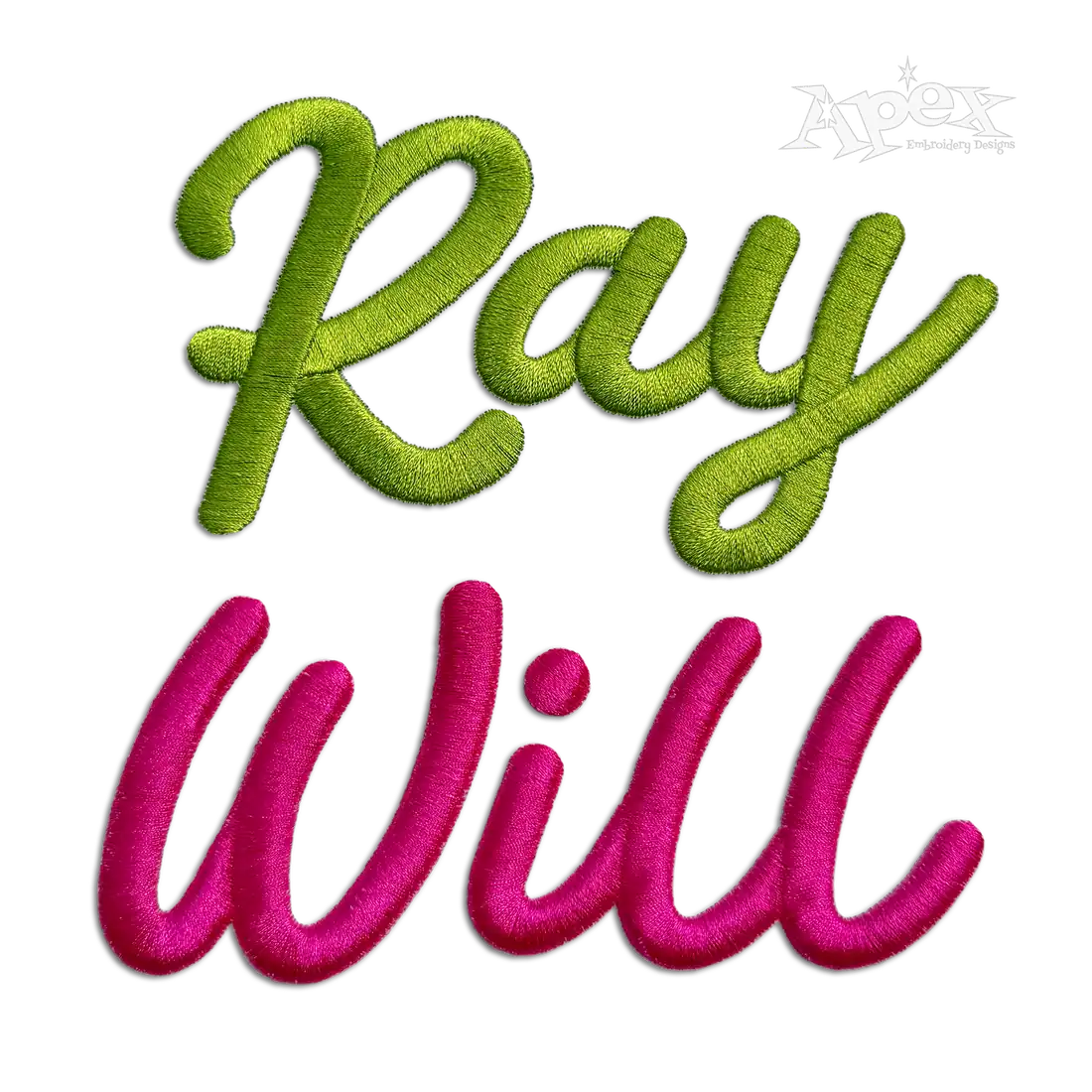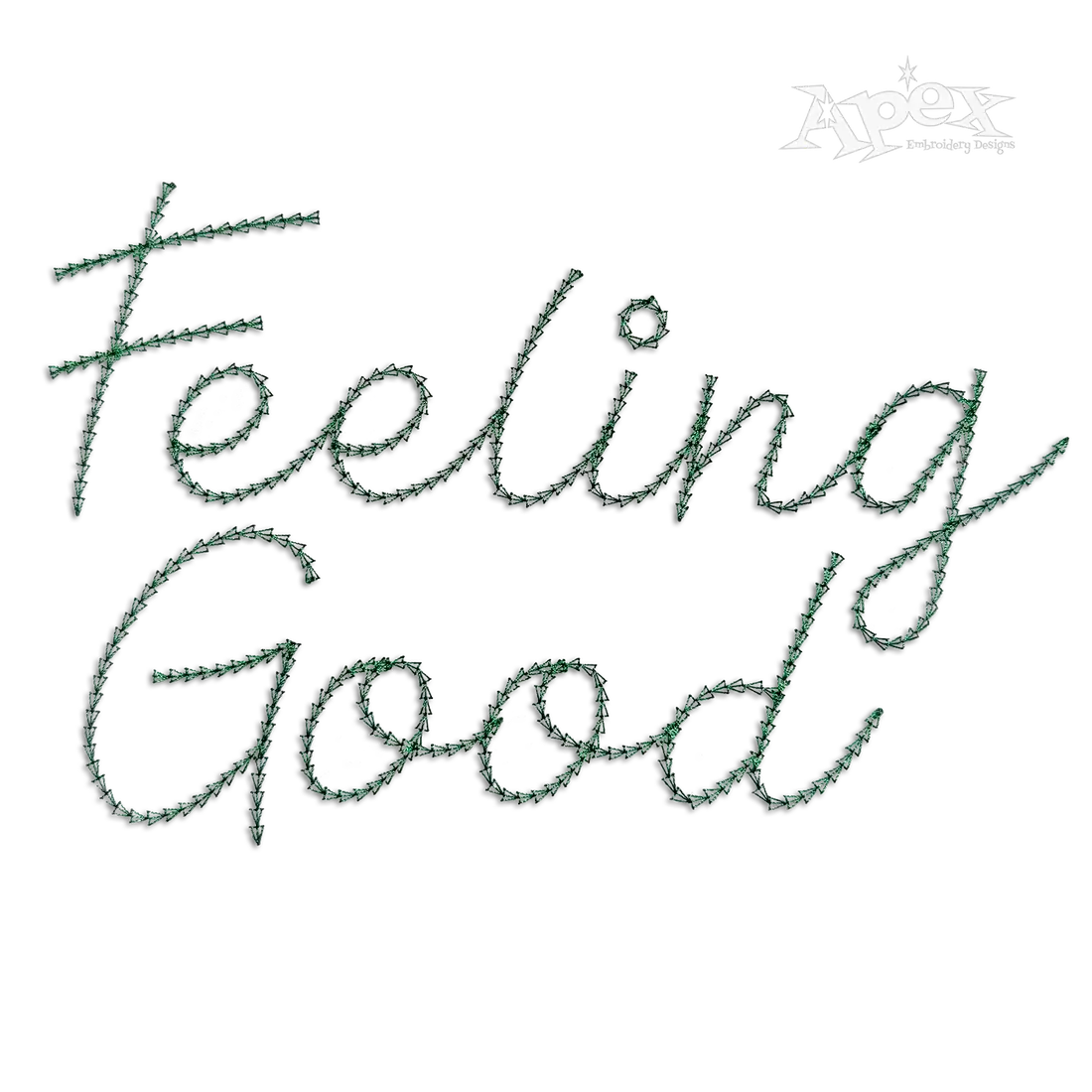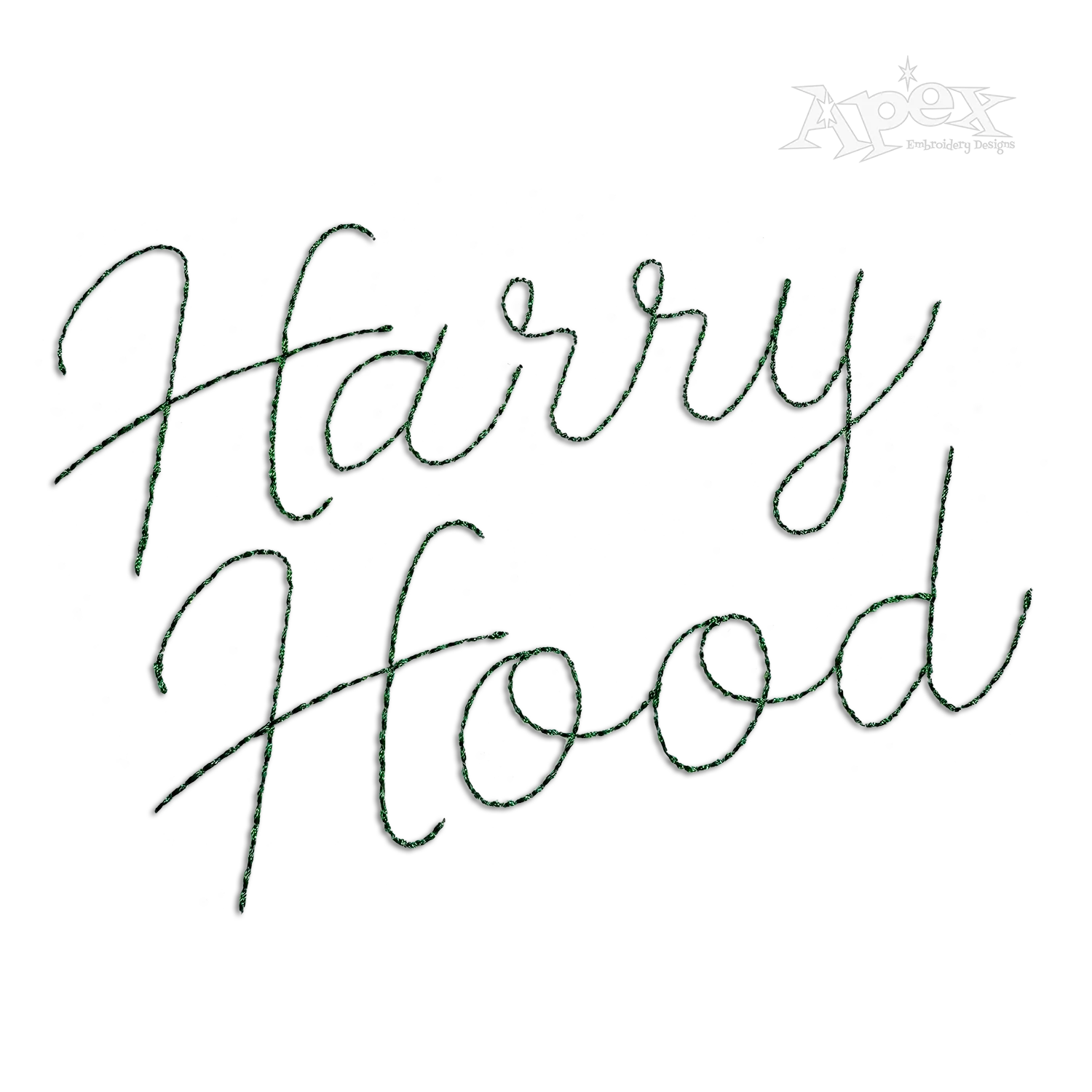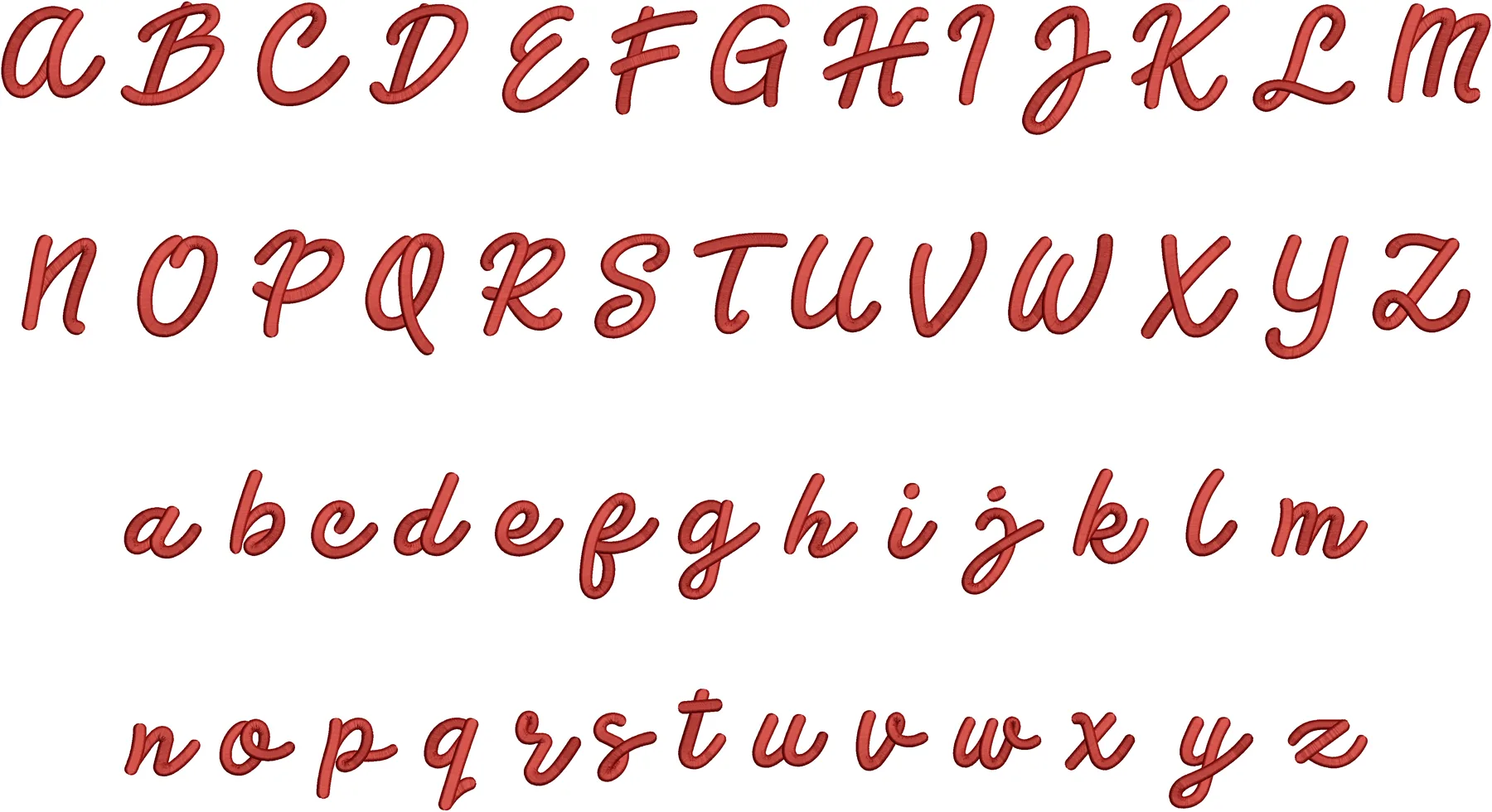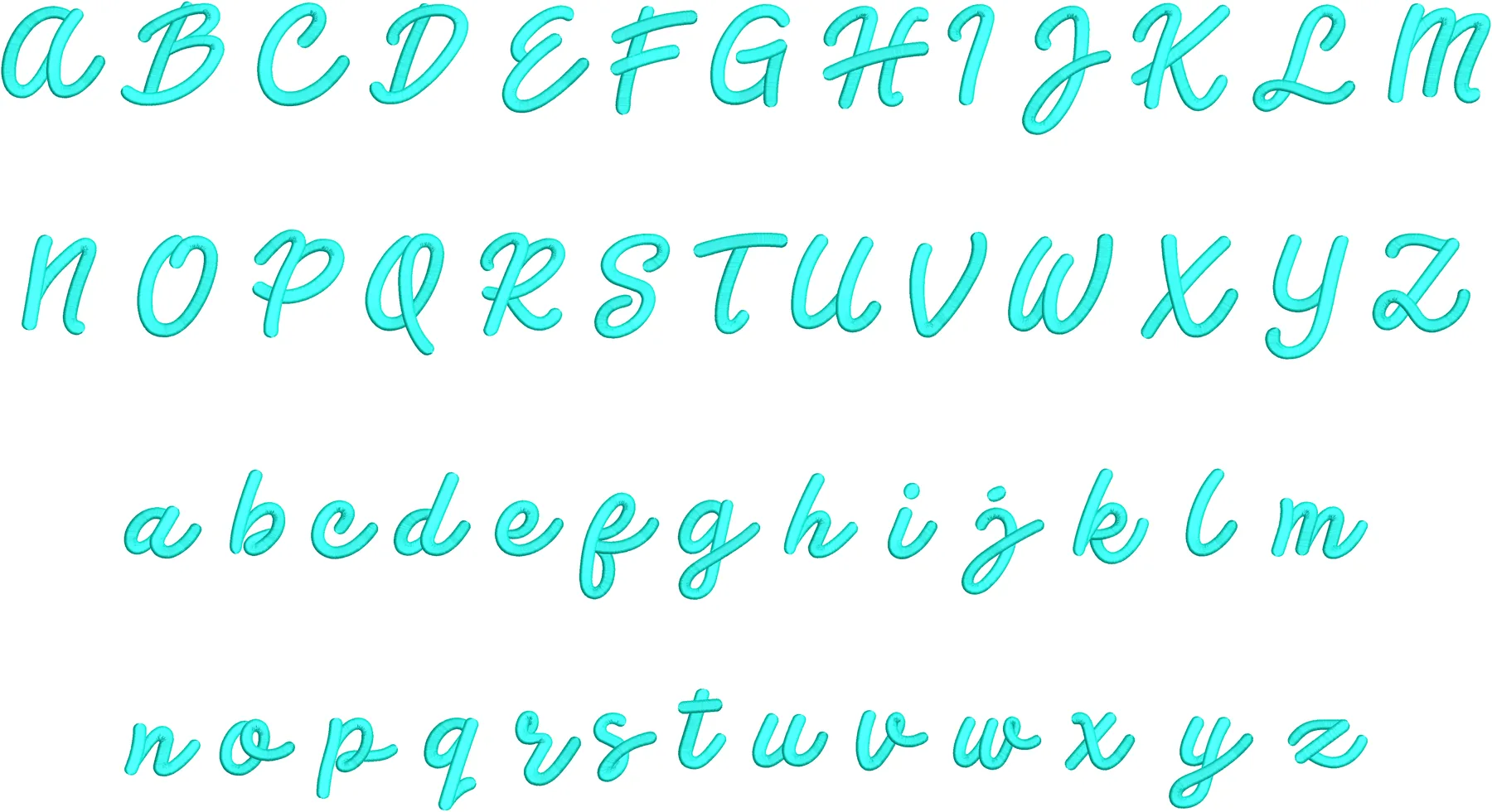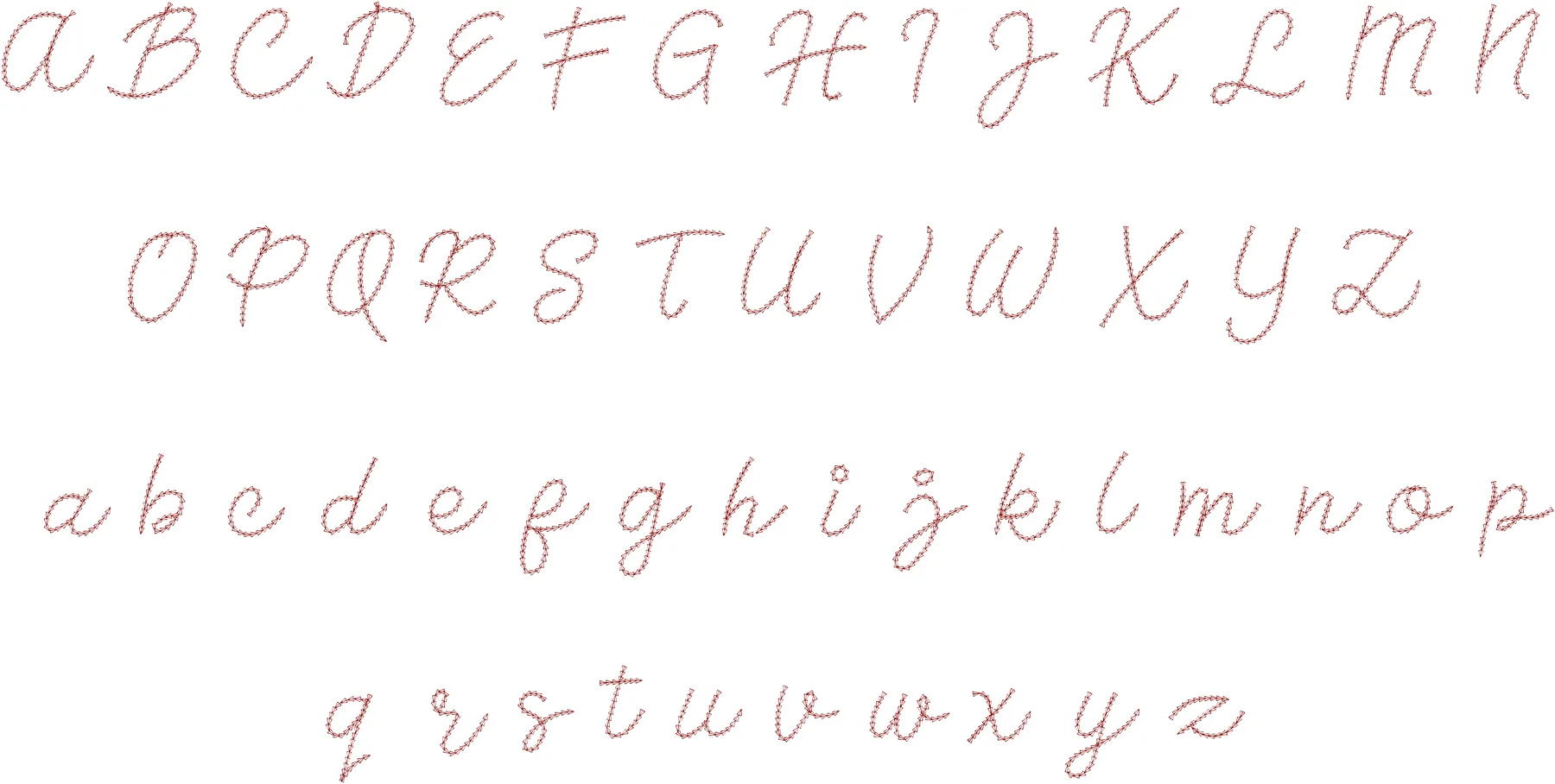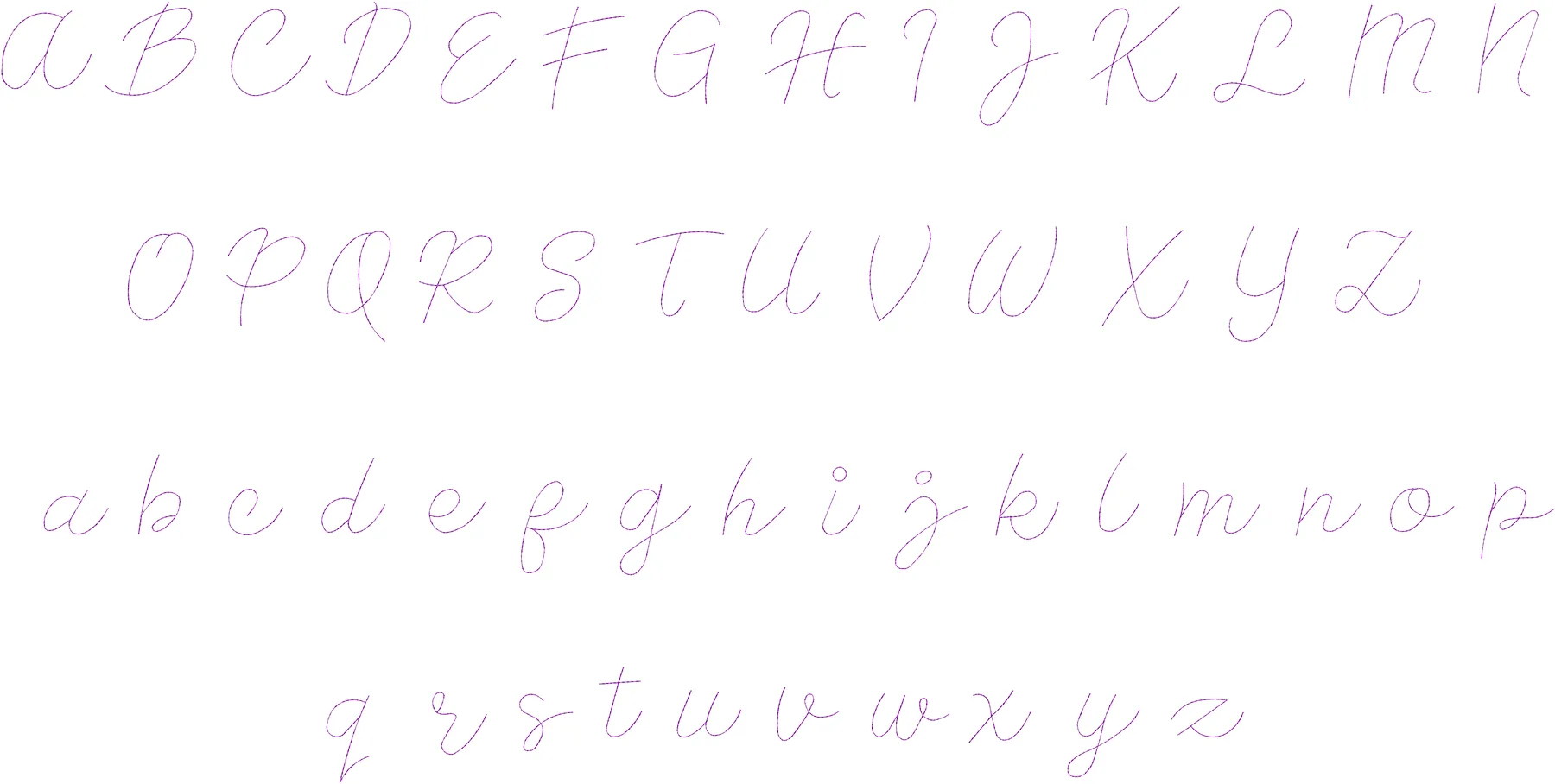
Capella Script Regular 3D Puff Bean Chain Stitch Embroidery Font Bundle
Create fancy elegant personalized names with Capella Script Bundle. This Cool cursive script embroidery set is perfect for customizing hats, linens, towels, baby gifts, tote bags, and more. Included All Letters A-Z Upper and Lowercase and 0-9 Numbers.
Capella Script embroidery font collection includes complete size sets with cursive script letters designed for creating stunning personalized names. Each font comes professionally digitized for smooth stitching and excellent embroidery results.